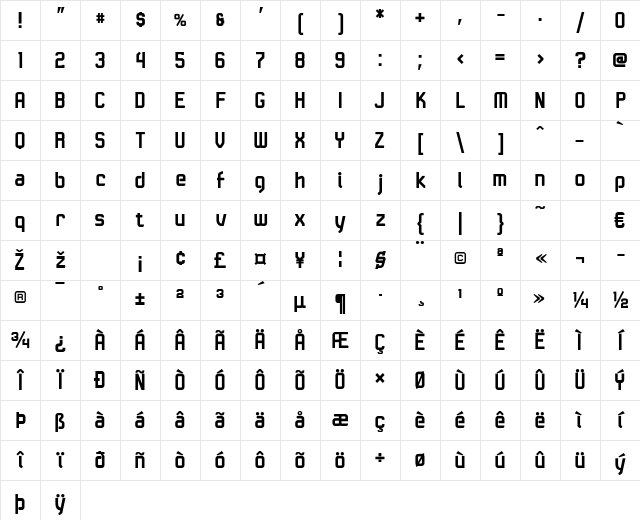
LTKaliber Bold Free Font
LTKaliber Bold
Designer: Lutz Baar
Design Context for LTKaliber
LTKaliber is a composed and adaptable typeface that performs quietly and consistently across a wide range of design contexts. Its bold stroke weight gives it real presence on the page.